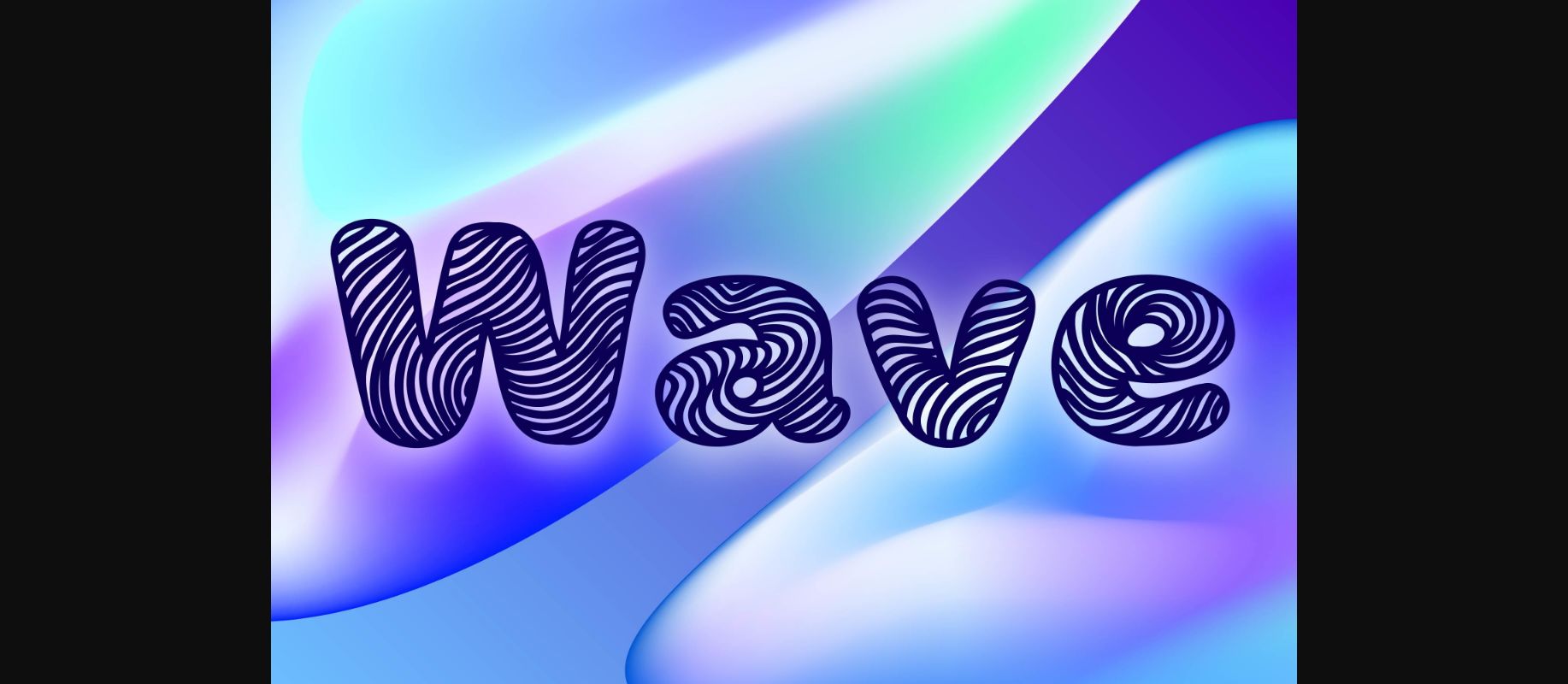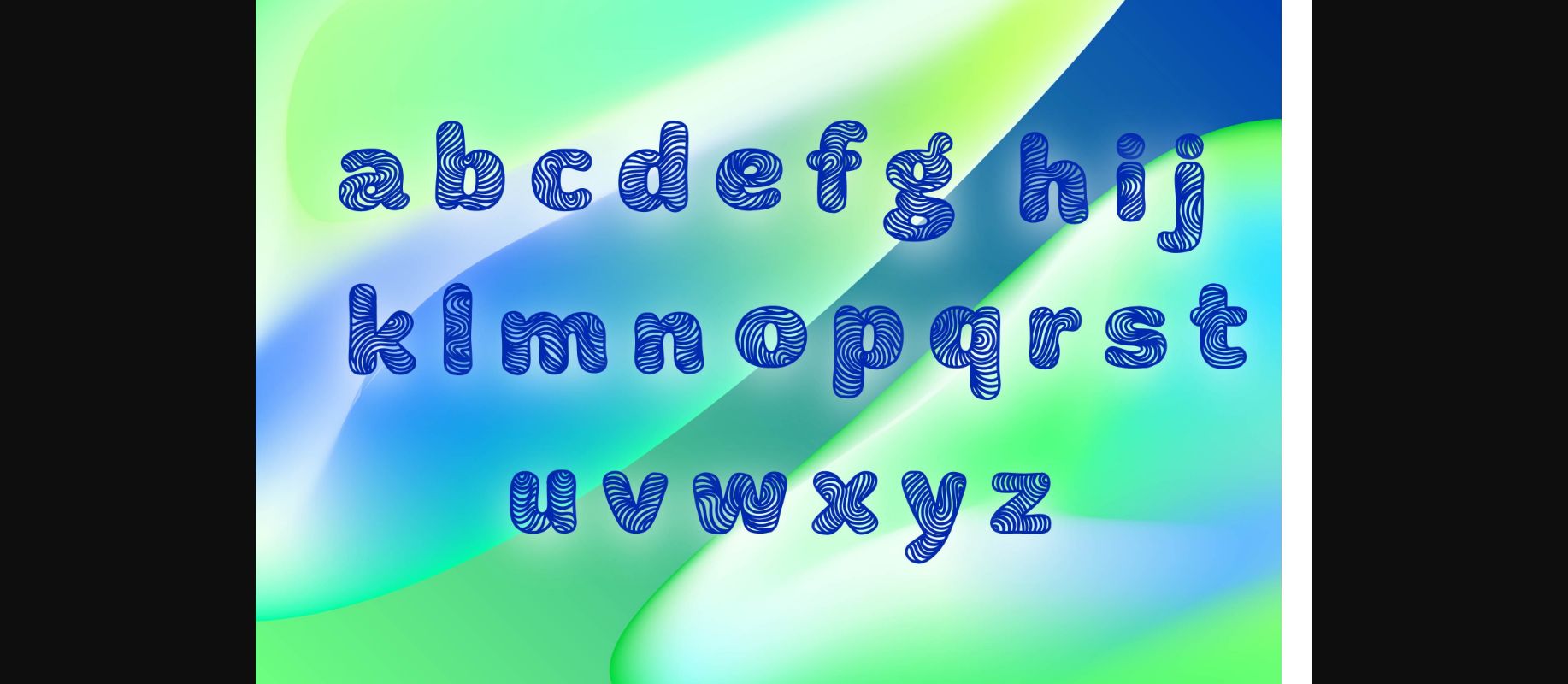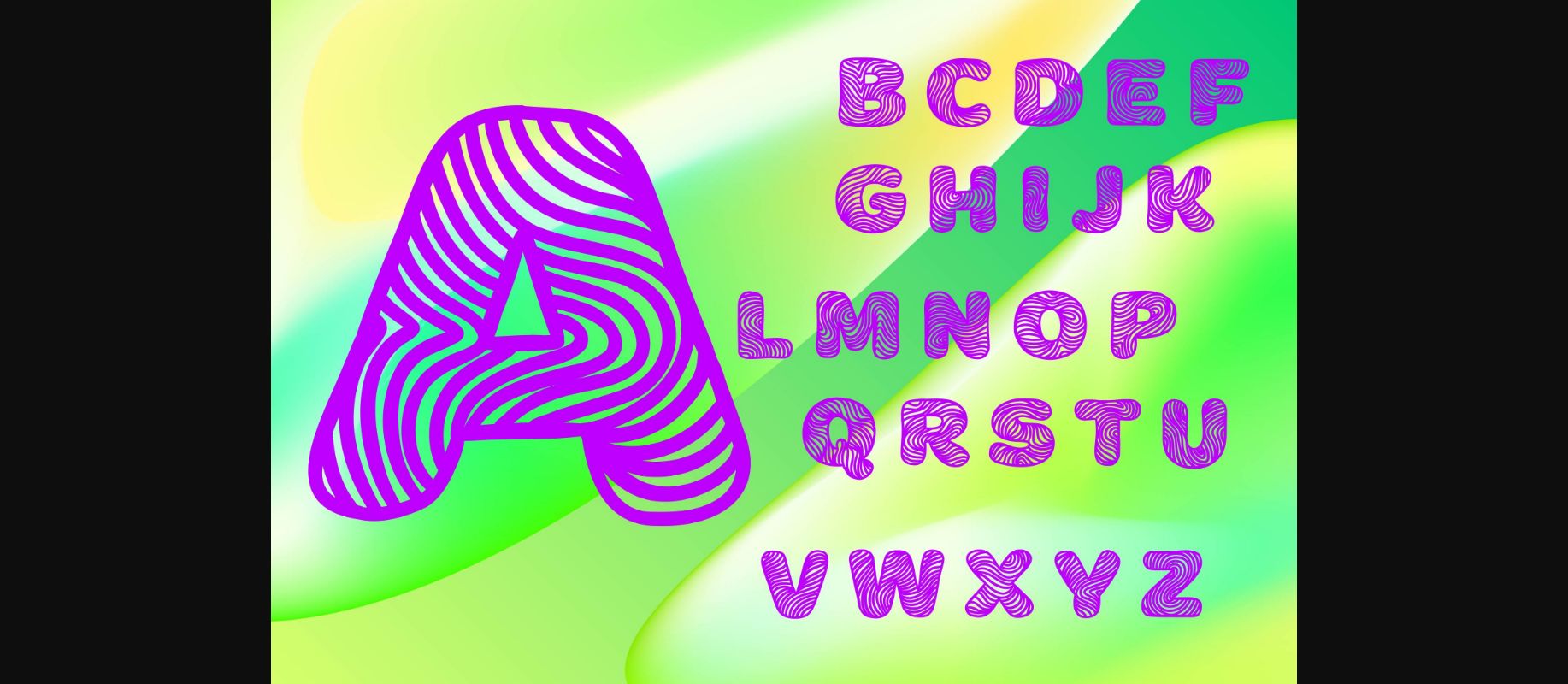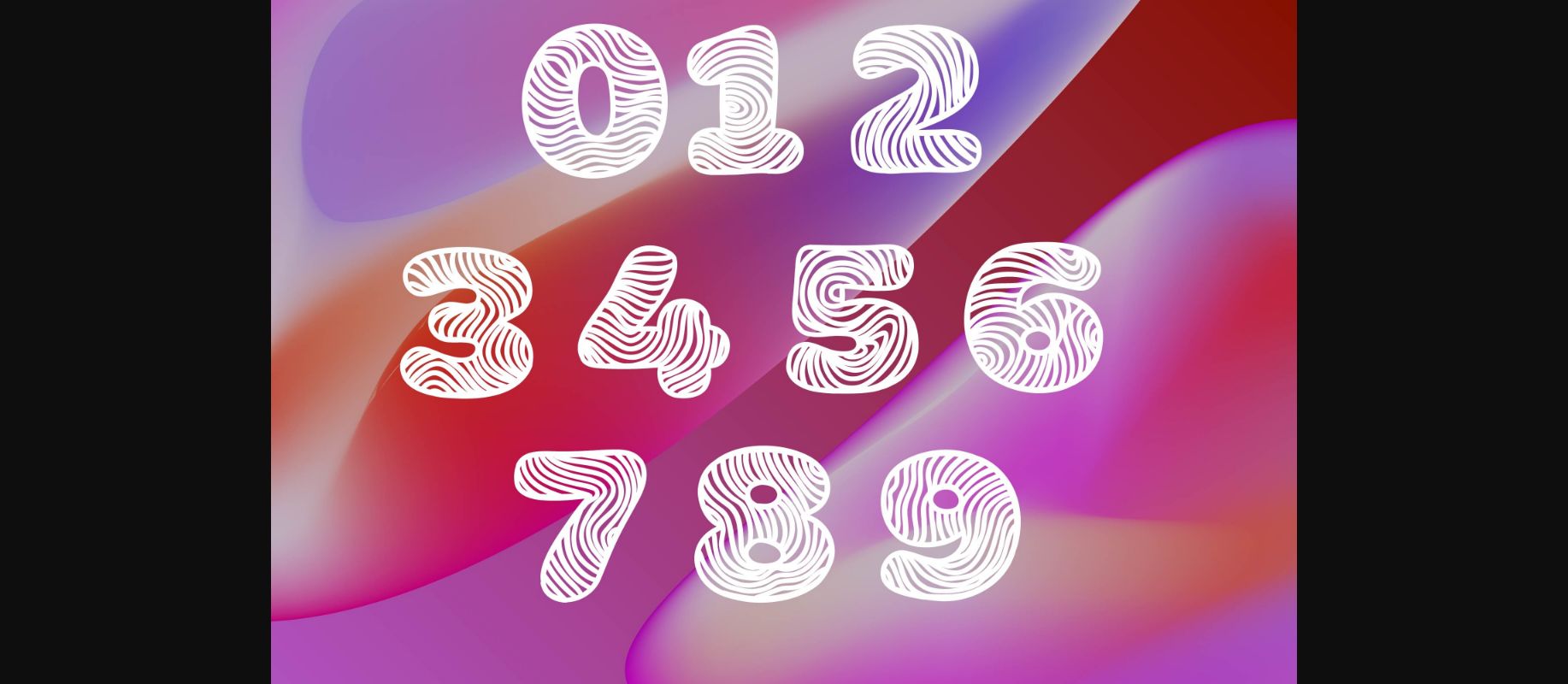
Wave Font
About Wave Font
This wavy decorative font has bold and chubby characters and will add a playful and bouncy feel to your designs. Use it to bring your creative projects to life!